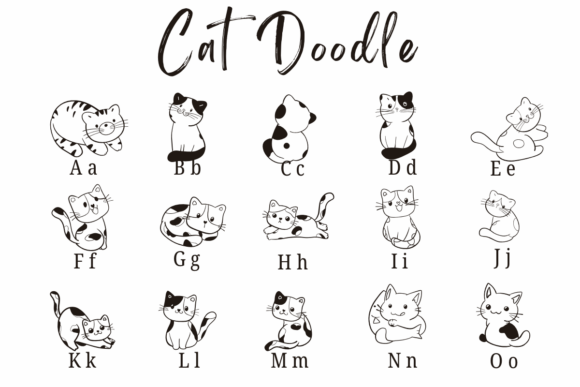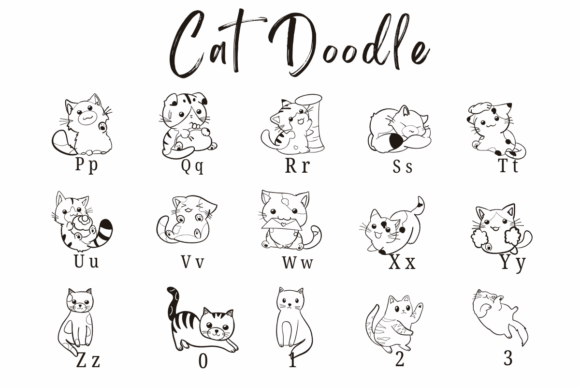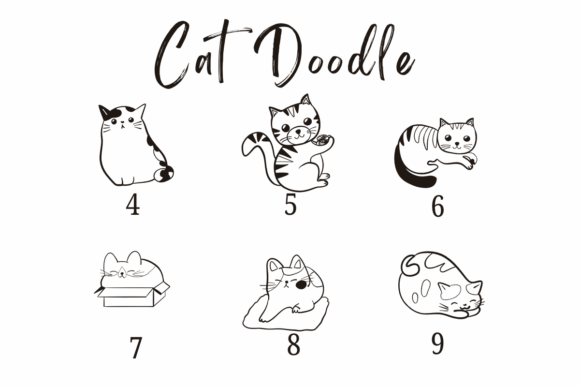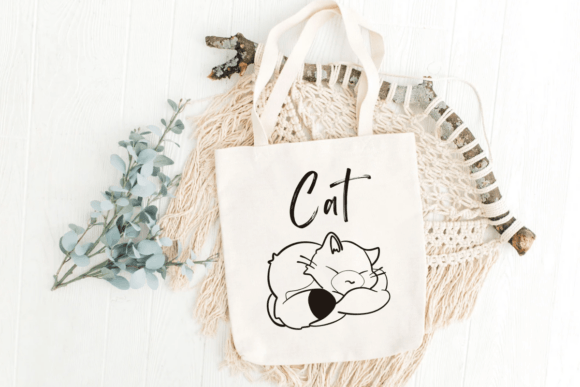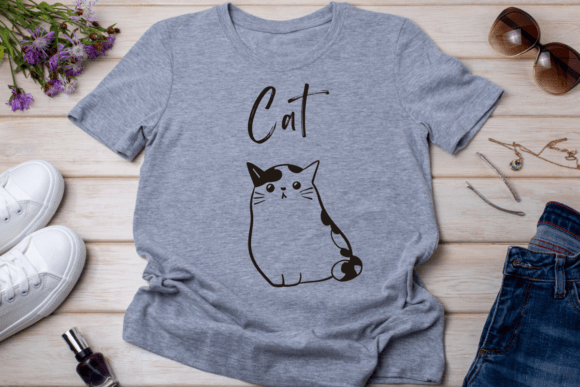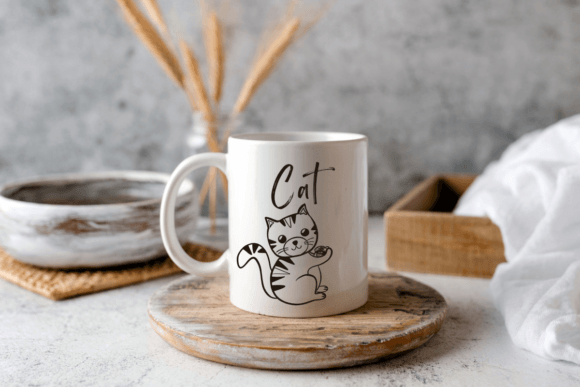
Bring a Whimsical Touch to Your Designs
As designers, we’ve all been there – staring at a blank screen, trying to come up with the perfect idea to capture our audience’s attention. And then, it hits us – a burst of creativity that leaves us excited and eager to bring our vision to life. For me, it was a late-night brainstorming session, surrounded by doodles of cats, that sparked the idea for a font that would bring a playful touch to designs everywhere.
Introducing the Cat Doodle Font, a delightful dingbat font featuring adorable, hand-drawn cat illustrations. With its extensive collection of cat-related symbols and images, this font is perfect for adding a whimsical and fun element to your designs. Whether you’re working on a children’s book, a cat-themed website, or simply want to add a touch of personality to your social media posts, the Cat Doodle Font is an invaluable tool for designers.
Cat Doodle Font Key Features
- Unique Characteristics: Cat Doodle Font features playful, whimsical doodles of cats in various poses and expressions, adding a touch of personality to designs.
Designer Review: Cat Doodle Font
Overall, I’d say the Cat Doodle Font is a fun, playful addition to any design project. ✨ The font’s whimsical feel is perfect for kids’ books, pet-themed brands, or even social media graphics.
The font’s unique design elements, such as the curved lines and quirky doodles, add a touch of personality to any text. ✨ The varying weights and styles allow for versatility in its use, making it suitable for a range of applications.
Limits and Considerations
While the Cat Doodle Font is great for casual, creative projects, it may not be the best choice for formal or professional designs. ⚠️ The font’s playful feel can come across as immature or unprofessional in certain contexts.
- Limited legibility: The font’s intricate doodles can make it difficult to read at small sizes or in certain font weights.
- Not ideal for body text: The font’s ornate design may be distracting when used for large blocks of text.
In conclusion, the Cat Doodle Font is a delightful addition to any design project that calls for a lighthearted, creative feel. However, it’s essential to consider the context and audience before using this font. With the right project, it’s sure to bring a smile to your design.
Tips for Getting the Most Out of Cat Doodle Font
Experiment with different font sizes and styles to create a unique and eye-catching design.
Use the Cat Doodle Font in combination with other playful and whimsical elements to create a cohesive and engaging design.
The Cat Doodle Font is perfect for:
Creativity and art projects
Children’s products and packaging
Playful marketing materials and social media graphics
Whimsical wedding invitations and party decorations